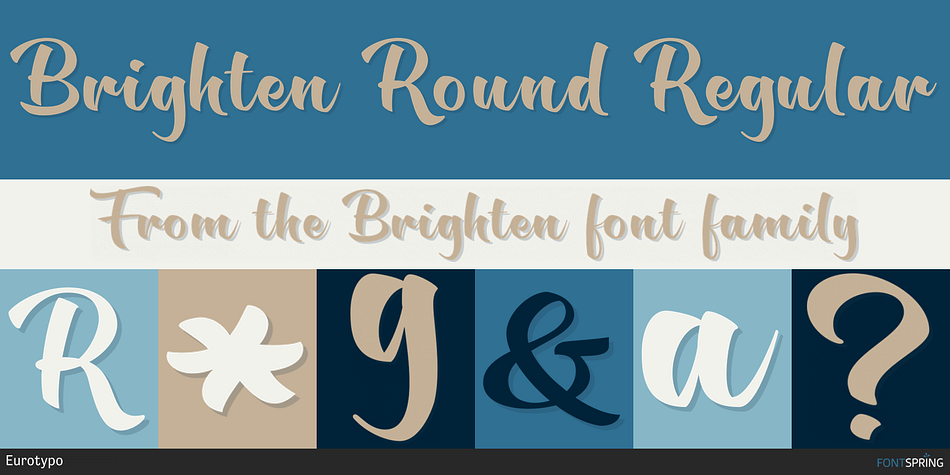
Brighten Round Regular
Designed by Carine de Wandeleer, Brighten is a brush script font family. This typeface has four styles and was published by Eurotypo.
Brighten is family font composed of Brighten Regular and Regular Italic, Brighten Round and Round Italic. With the total number of 606 glyphs, Brighten is the perfect blend of elegant and casual.
Brighten is equipped with plenty of OpenType features. Uppercase letters can alternate between at least two or three different forms and lowercase letters have leastways four choices more to avoid repetition. These effects include start and end forms of lowercase letters, which are automatically substituted in at beginnings or ends of words. To activate the optional glyphs,  you may click on Swash, Contextual, Standard Ligatures, Stylistic or Discretionary Ligatures buttons in any OpenType savvy program or manually choose the characters from Glyph Palette.
Also, there are some ornaments designed to support the font (access the ornaments through the Glyph Palette).
The Brighten family font might be the choice to use on creating headlines, logos & posters for branding and packaging purposes.